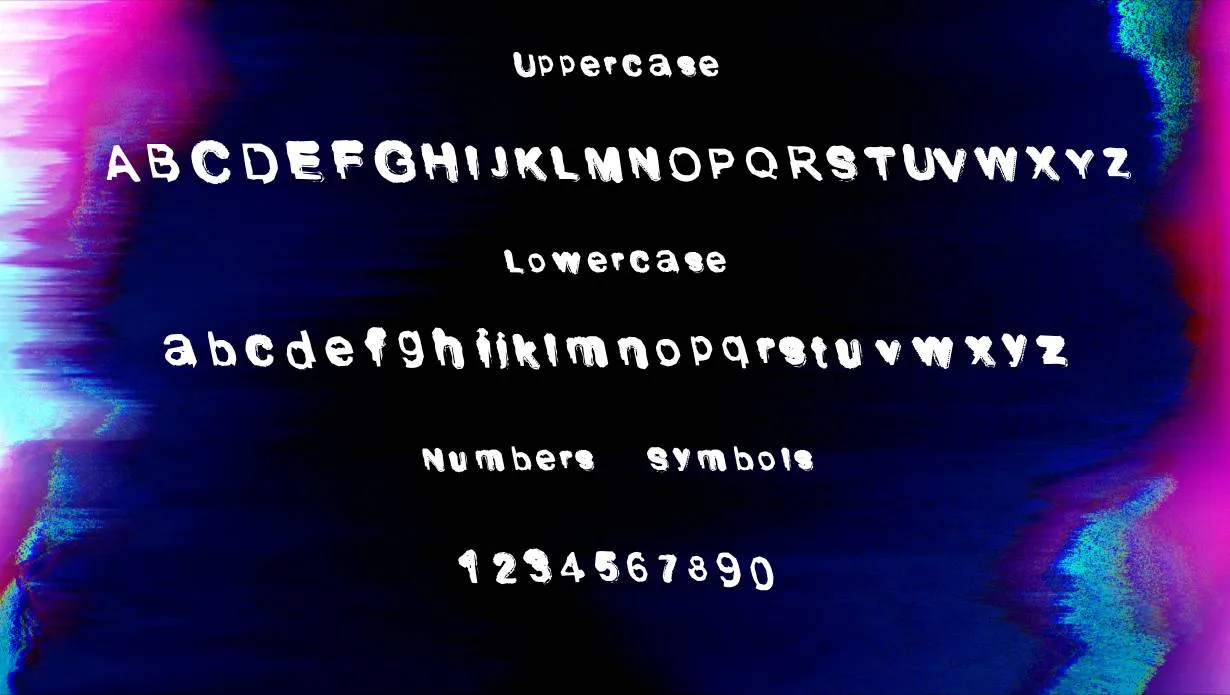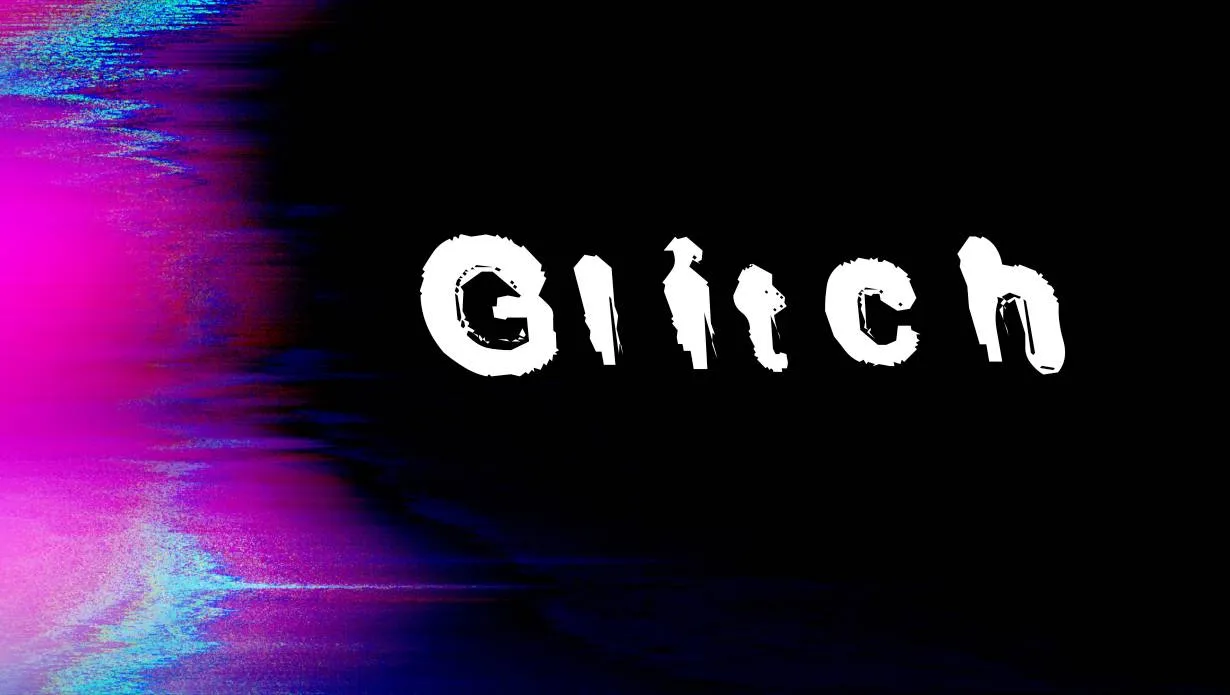
Shodo Font is a nice and stunning text design it was created by Yasuaki Yasumelt. Due to its attractive appearance, it attracts the viewers’ attention just because of its sharp features. The font’s letters are incredibly appealing and can be used to create a variety of designs.
Paired with a mosk font, it creates a classy and unique design. It provides an online generating tool to create fun designs. You may make fascinating banner graphics and social media post designs by utilizing this gorgeous typeface.
| Name | Shodo Font |
| Designer | Yasuaki Yasumelt |